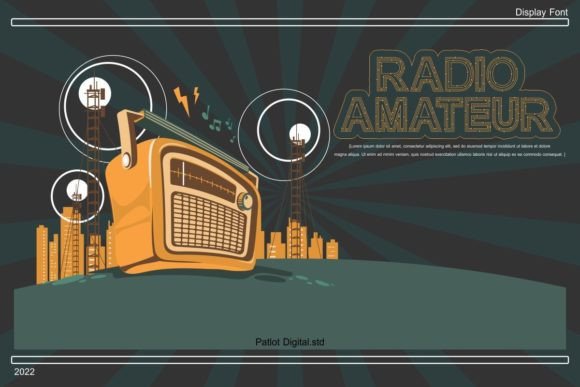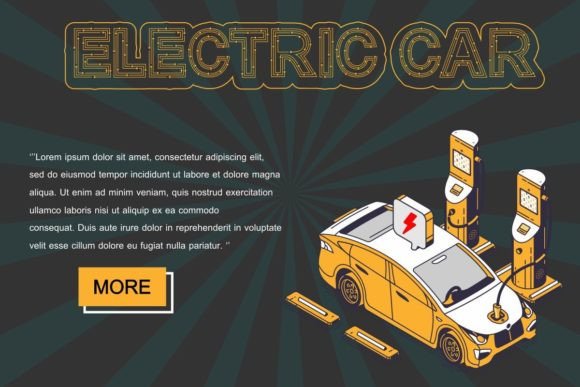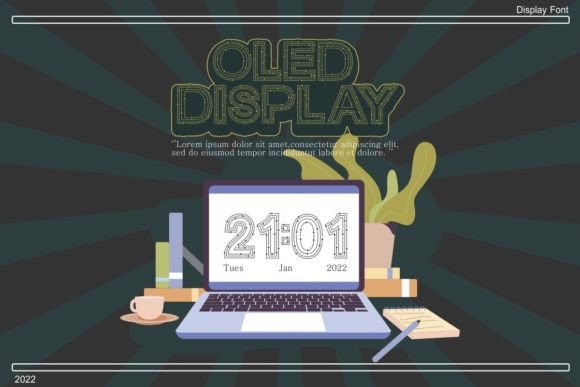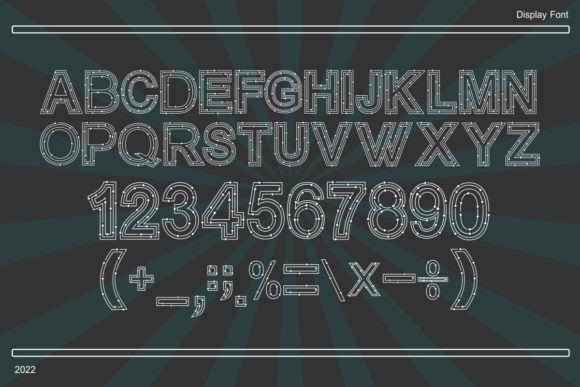
Introducing Electroholic Font: Elevate Your Designs with a Cool and Unique Display Font
Are you tired of using the same old fonts in your designs? Do you want to add a touch of modernity and edginess to your creative projects? Look no further than Electroholic Font, a cool and unique display font inspired by authentic electronic lines. With Electroholic, you can take your designs to the next level and create stunning visual effects that will leave your audience mesmerized.
What is Electroholic Font?
Electroholic Font is a display font that is designed to resemble the sleek and futuristic lines of electronic devices. The font is characterized by its bold, geometric shapes and sharp lines, giving it a modern and edgy feel. Whether you’re designing a logo, a poster, or a website, Electroholic Font is the perfect choice for adding a touch of sophistication and style.
Key Features of Electroholic Font
- Unique and Authentic Design: Electroholic Font is inspired by authentic electronic lines, giving it a unique and distinctive look that sets it apart from other fonts.
- Bold and Geometric Shapes: The font features bold, geometric shapes that give it a modern and edgy feel.
- Sharp Lines and Clean Edges: The sharp lines and clean edges of Electroholic Font make it perfect for creating stunning visual effects.
- Highly Versatile: Electroholic Font can be used for a wide range of design projects, from logos and posters to websites and social media graphics.
Benefits of Using Electroholic Font
So why should you choose Electroholic Font for your design projects? Here are just a few benefits of using this amazing font:
- Adds a Touch of Modernity: Electroholic Font is the perfect way to add a touch of modernity and edginess to your designs.
- Creates Stunning Visual Effects: The bold, geometric shapes and sharp lines of Electroholic Font make it perfect for creating stunning visual effects.
- Perfect for Logos and Branding: Electroholic Font is a great choice for logos and branding projects, as it can help to create a unique and memorable visual identity.
- Easy to Read and Understand: Despite its bold and edgy design, Electroholic Font is easy to read and understand, making it perfect for use in a wide range of design projects.
- Logos and Branding: Use Electroholic Font to create a unique and memorable visual identity for your brand.
- Posters and Flyers: Add a touch of modernity and edginess to your posters and flyers with Electroholic Font.
- Websites and Social Media Graphics: Use Electroholic Font to create stunning visual effects on your website or social media graphics.
Tips and Tricks for Getting the Most Out of Electroholic Font
Here are a few tips and tricks for getting the most out of Electroholic Font:
- Experiment with Different Colors: Electroholic Font looks great in a wide range of colors, so don’t be afraid to experiment and find the perfect color for your design.
- Use it with Other Fonts: Electroholic Font can be used with other fonts to create a unique and interesting visual effect.
- Play with Different Sizes: Electroholic Font can be used at a wide range of sizes, from small and subtle to large and bold.
| Font Name | Electroholic Font |
| Author | Patlot Digital.Studio |